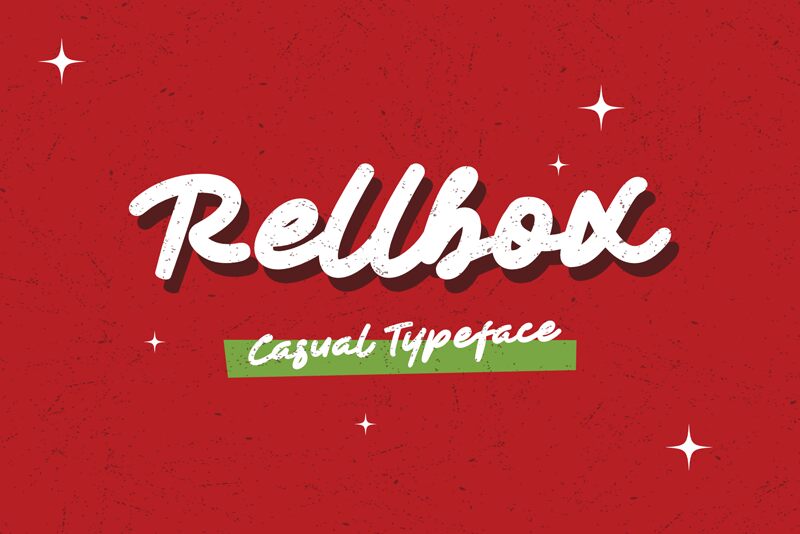
Rellbox
Introducing Rellbox, the bold, casual handwritten font from designer Toni Dzulham. Perfect for all your creative projects, from logos to event invitations and product branding. Give your work a unique and stylish twist with Rellbox!